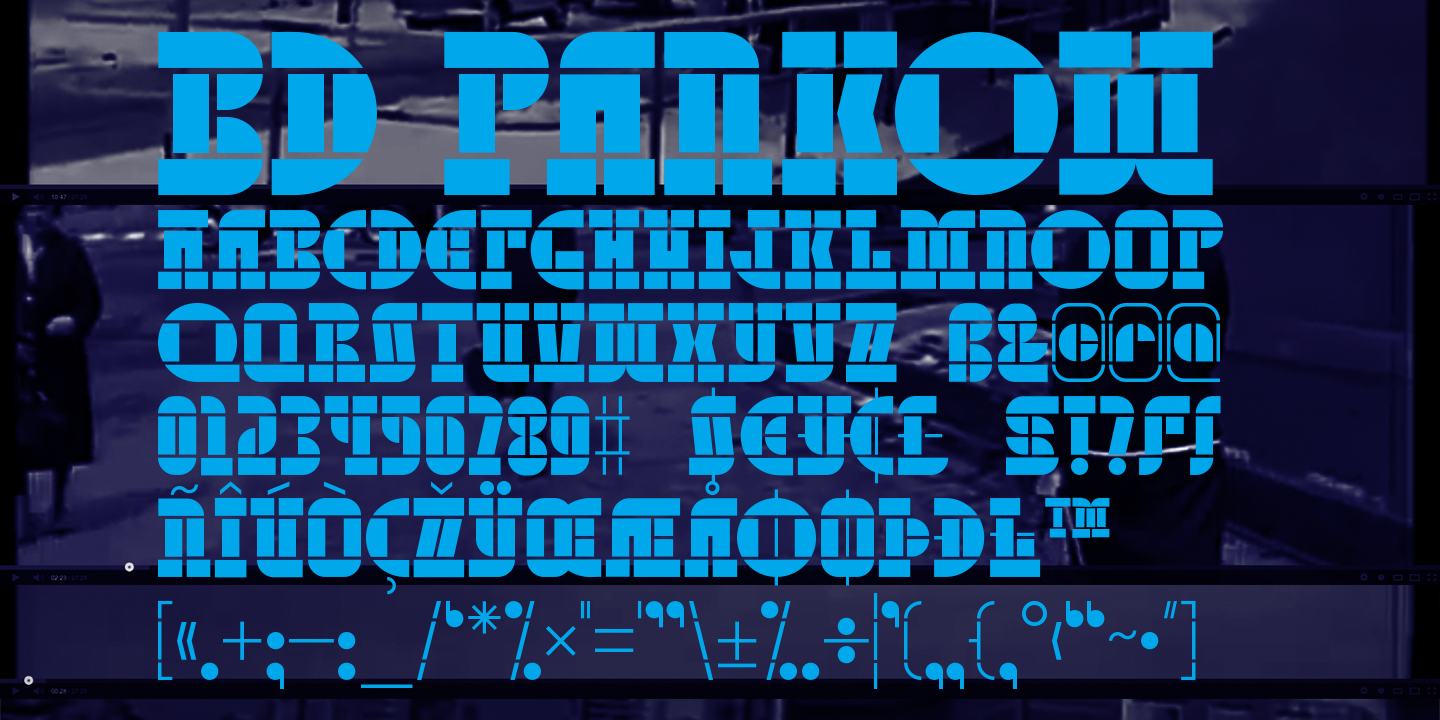
The BD Pankow Font excels in various design applications including Berlin district cultural branding, German urban development marketing, modern German architecture communications, Berlin neighborhood tourism materials, contemporary German design identities, urban planning documentation, German cultural center promotions, Berlin historical society signage, German municipal project materials, and distinguished German projects that demand Berlin authenticity and German sophistication.
What makes the BD Pankow Font exciting is its urban embodiment of Berlin district character and contemporary German design through letterforms that capture the essence of modern German urbanism and the cultural vibrancy of Berlin's diverse neighborhoods. This typeface demonstrates exceptional metropolitan character through carefully crafted letters that suggest the architectural lines of contemporary Berlin buildings, the cultural diversity of German urban communities, and the progressive spirit that makes Berlin such a culturally dynamic and architecturally innovative European capital. The font's Berlin personality makes it perfect for German cultural organizations and urban development companies seeking to communicate German authenticity, Berlin urbanity, and the kind of metropolitan sophistication that creates memorable German cultural experiences through typography that literally builds with German precision.
The BD Pankow Font family typically includes metropolitan weight variations that enhance the German aesthetic, featuring urban styling options and extended character sets supporting German linguistic requirements and European cultural applications. These family options often include Berlin-inspired alternates, German symbols, and urban decorative elements that provide designers with comprehensive tools for creating authentically German typography that celebrates Berlin culture while maintaining contemporary design appeal and German credibility.
Cultural professionals and German urban organizations consistently select BD Pankow Font Free Download for projects requiring typography that communicates German authenticity and Berlin sophistication. This typeface delivers exceptional performance in German marketing, Berlin branding, and urban communications where establishing cultural credibility and creating metropolitan atmosphere is essential for German cultural engagement. The font's district character makes it particularly effective for tourism and architectural applications. Download BD Pankow Font Free Download today to access this metropolitally sophisticated typeface that transforms German communications with its Berlin elegance and urban sophistication, creating compelling cultural experiences that honor the magnificent diversity of Berlin districts while celebrating the progressive urbanism that defines authentic German metropolitan culture and Berlin excellence.